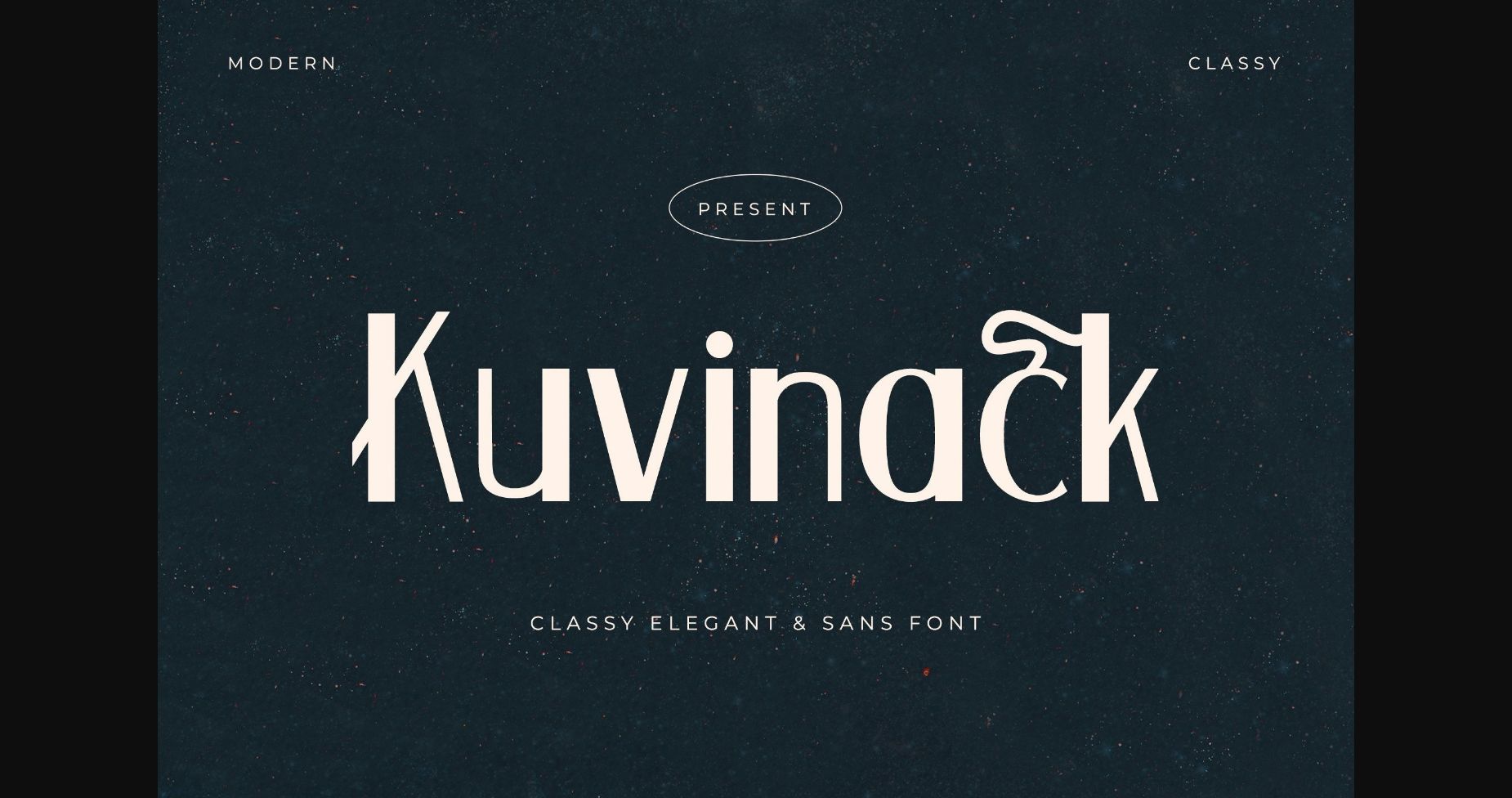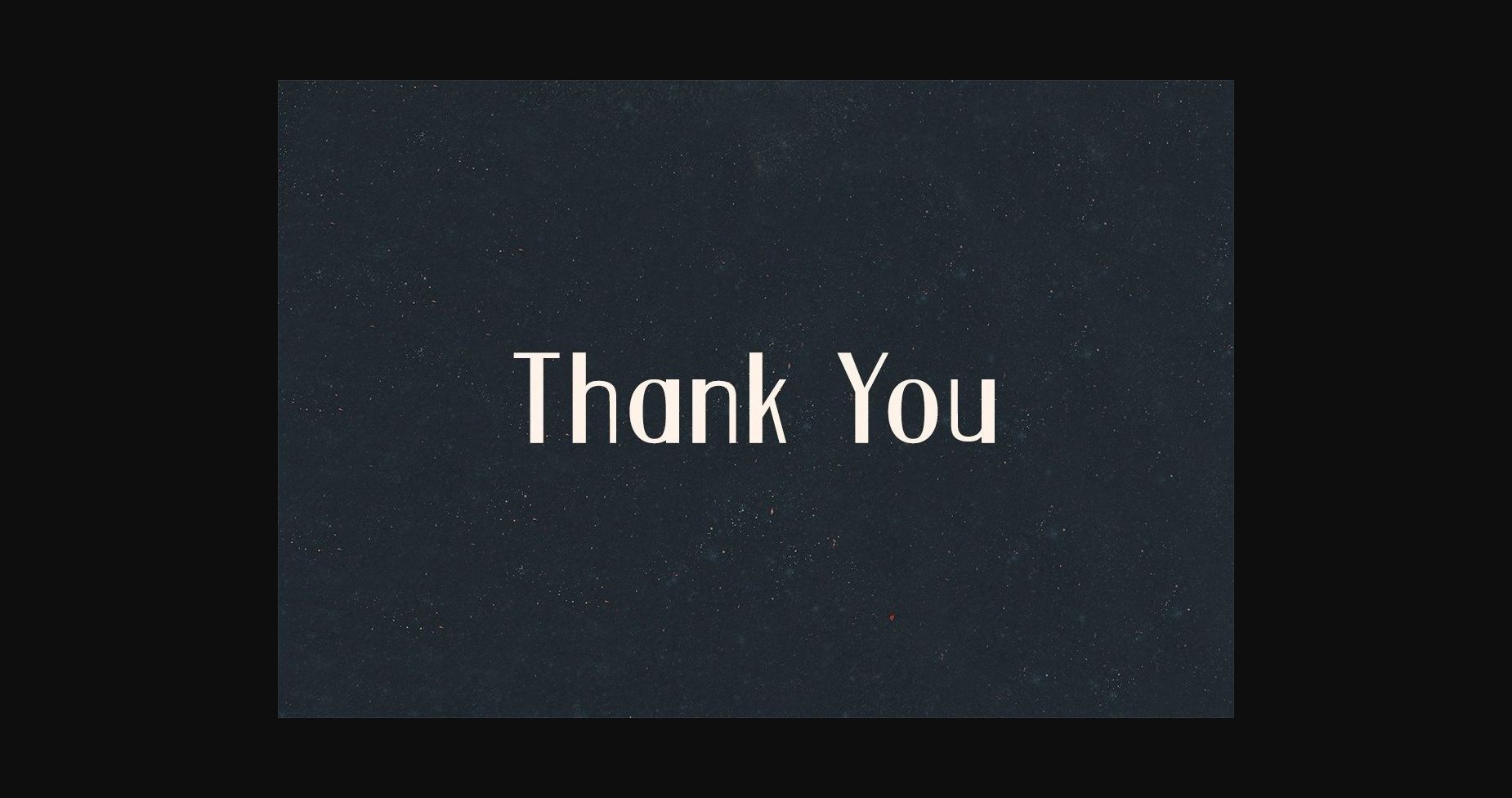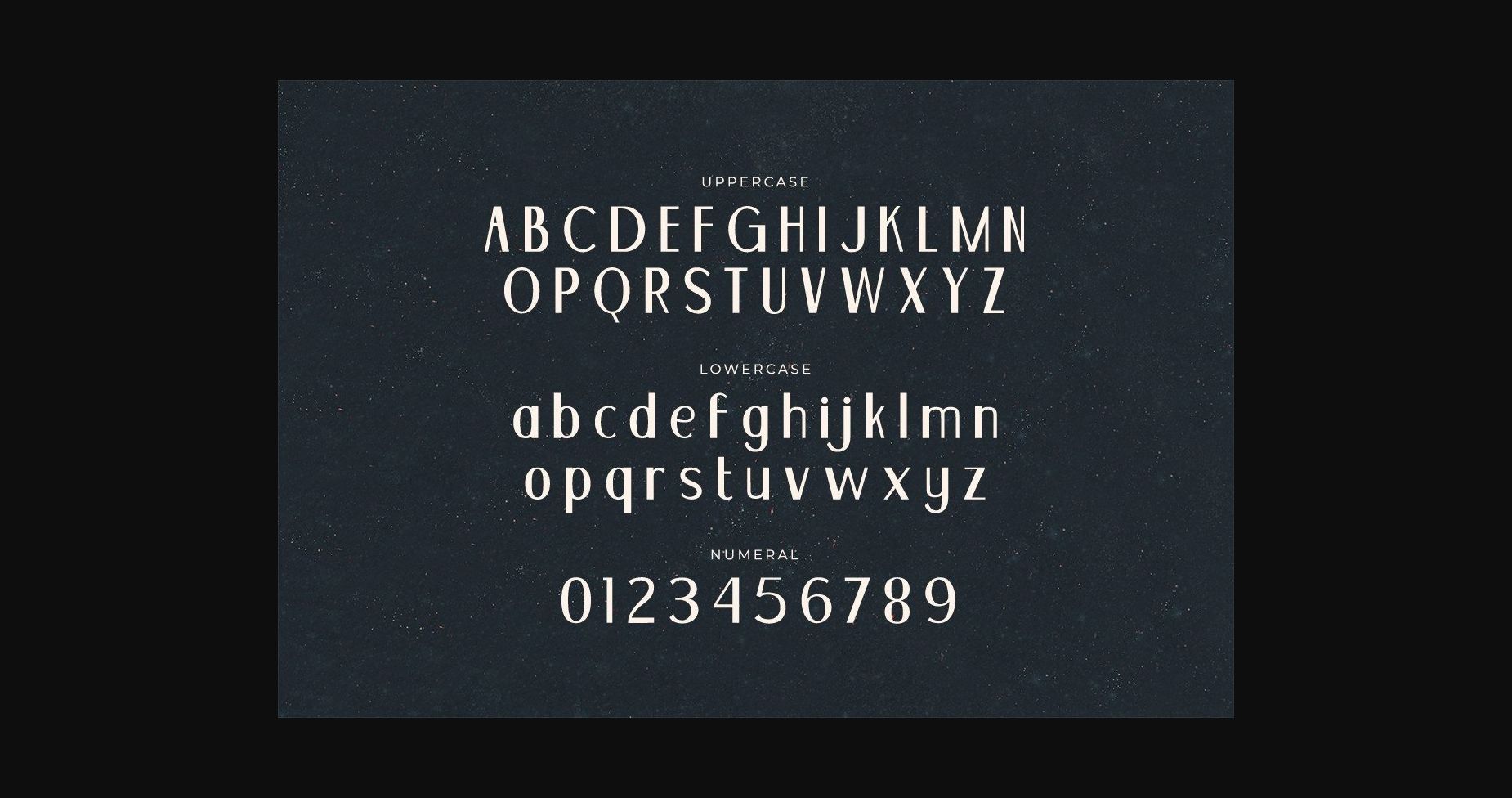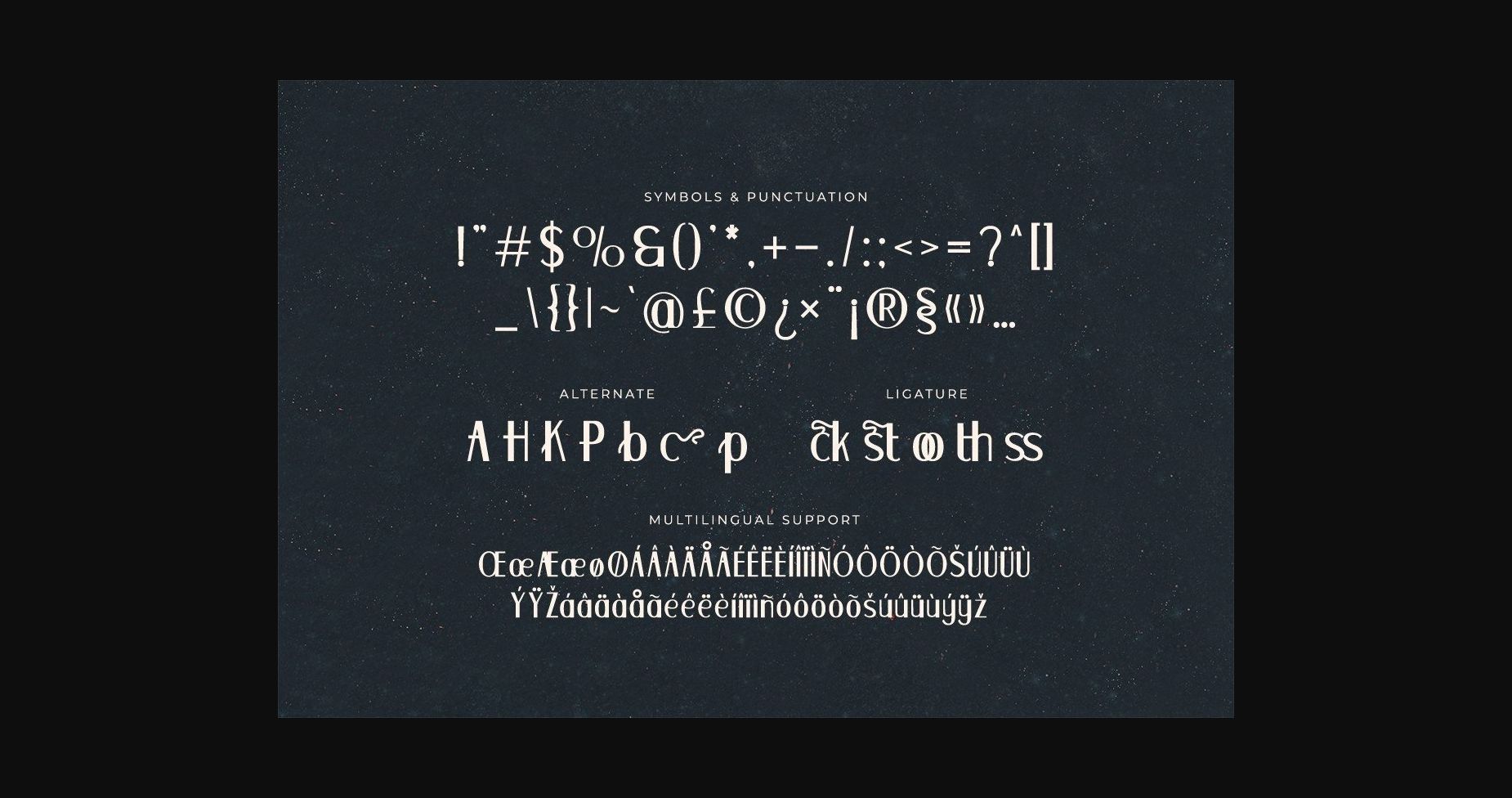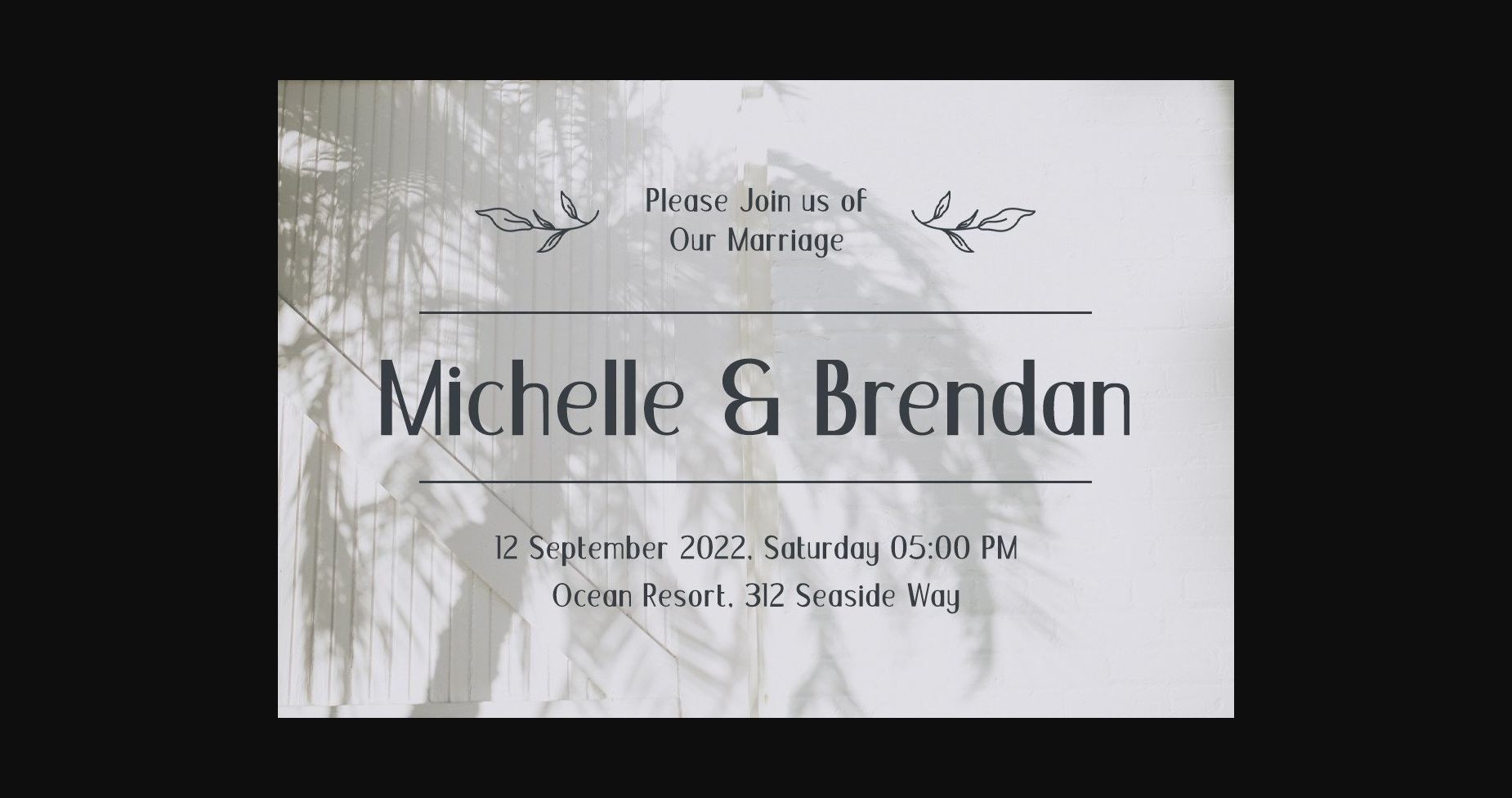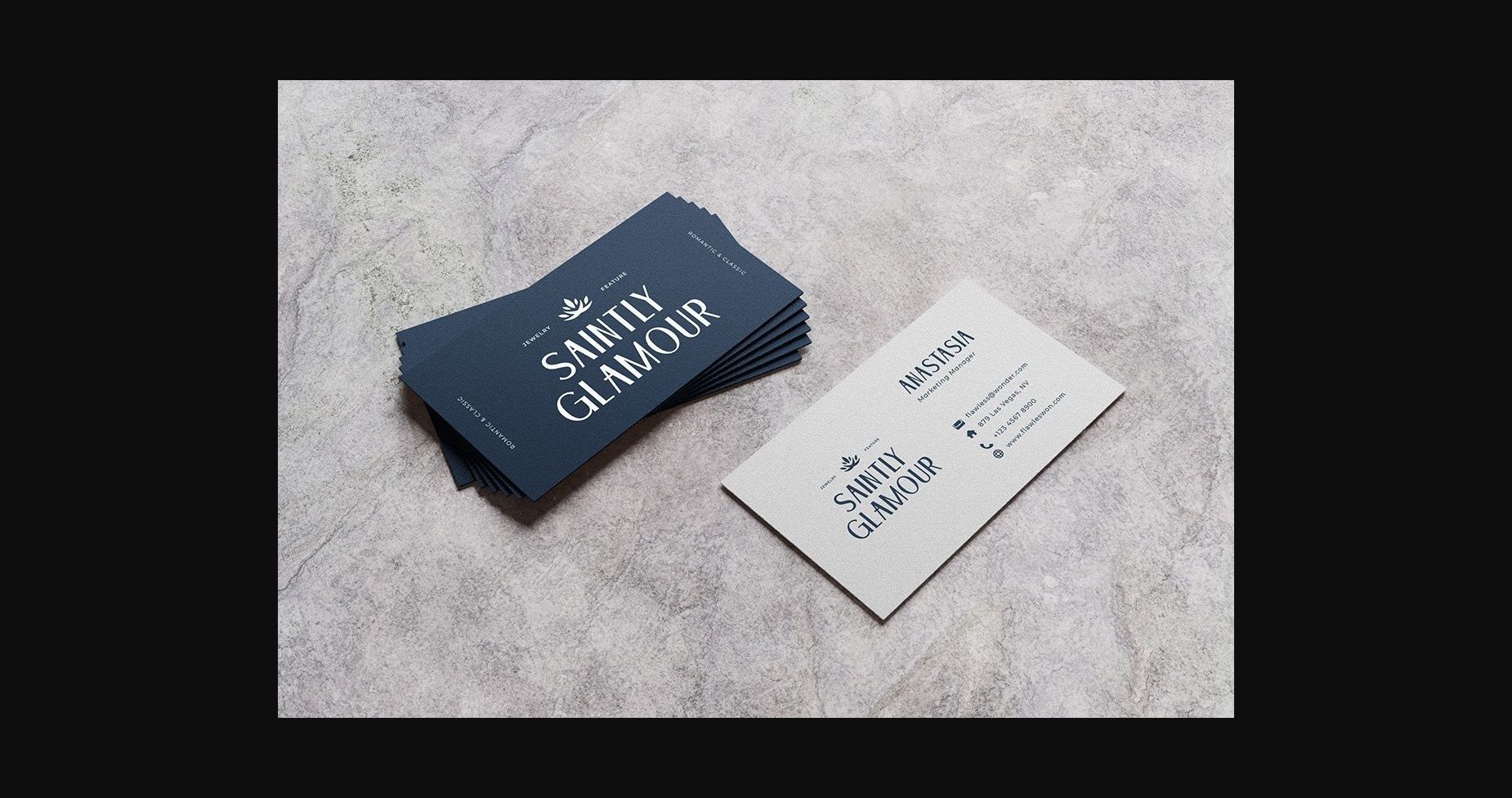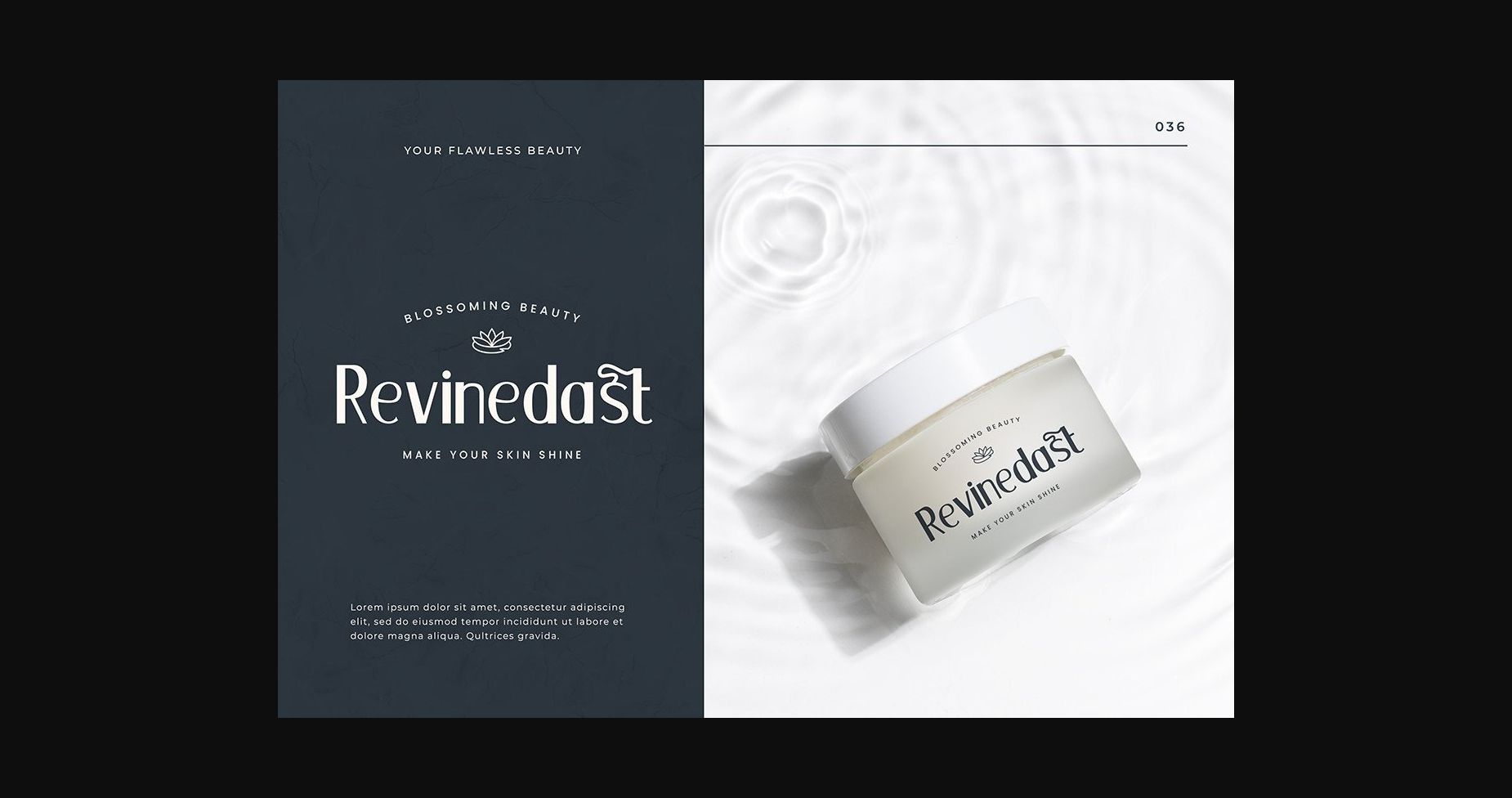
About Kuvinack Font
Kuvinack is an elegant and modern sans serif font.
No matter the topic, this font will be an incredible asset to your fonts library, as it has the potential to elevate any creation.